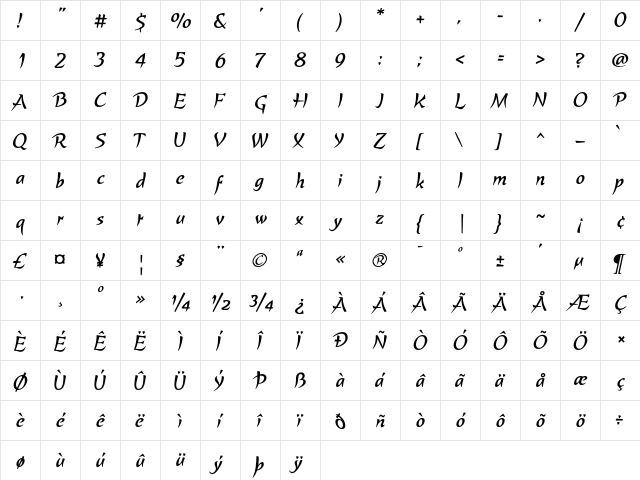
Kasuga Regular
Design Context for Kasuga Typeface
Kasuga takes a measured approach to typography — its balanced proportions and neutral character make it a reliable workhorse for both digital and print work.